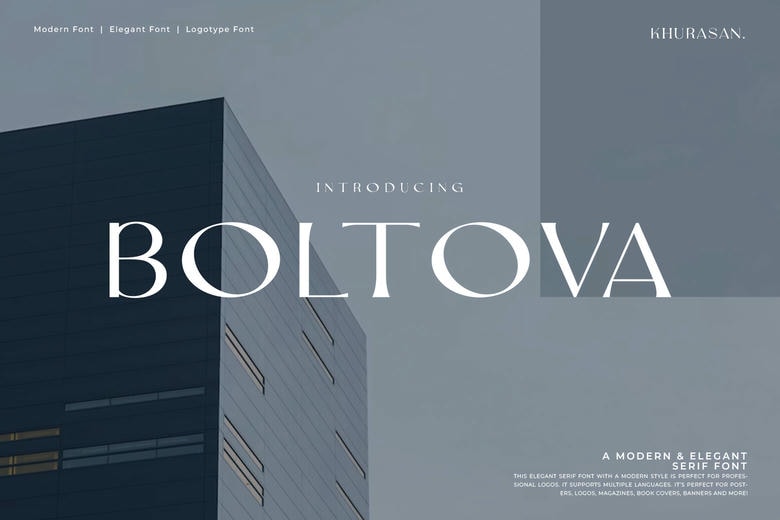
Boltova Font
Boltova is an advanced serif display typeface designed to appeal to designers who require reliability and elegance in their designs. Having a delicate contrast, crisp serifs, and balanced proportions of the typeface, this typeface perfectly combines the elegance of the past and the modern style.
The output is a high end, editorial, and strong font that is an ideal branding, logo, fashion, invitation, web, and luxury visuals across social media. All curves are beautiful and clear, which enhances a high level of aesthetic that immediately makes any design high-quality.
The Boltova typeface features a very heavy vertical and a strong, triangular serif which is used to obtain a combination of an authoritative and also stylish look. Boltova font is a Logotype Font, which is directly designed to support the professional logos, the magazine mastheads, and the high-impact headlines.
Its adaptability enables it to move out of corporate world to a luxury lifestyle brand without losing its unique personality. Use your layout to create large scale titles, and combine it with the use of a light-weight sans-serif to create a traditional, professional hierarchy.
Be it in a striking headline or incorporated in the fashionable design, Boltova is like having the inimitable touch of chic in your creative output.
Boltova Serif Font